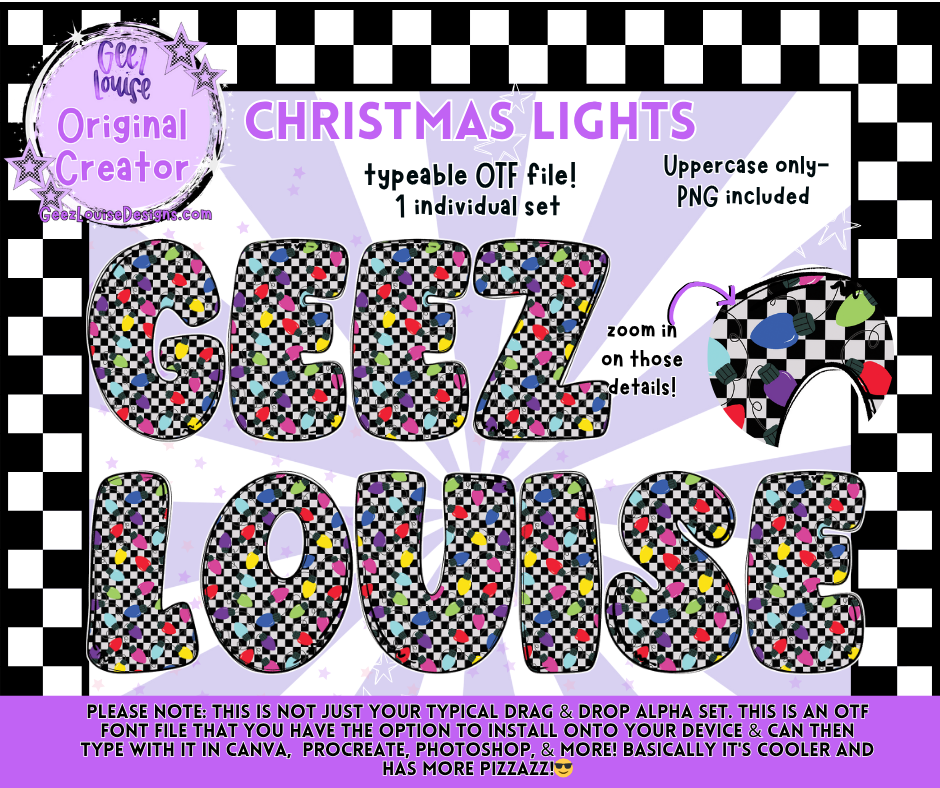
Christmas Lights Font & PNG Alpha | Typeable OTF File
Light up your designs with the Christmas Lights font! This festive set features a checkerboard background filled with colorful holiday lights — perfect for adding bold and merry vibes to your seasonal projects.